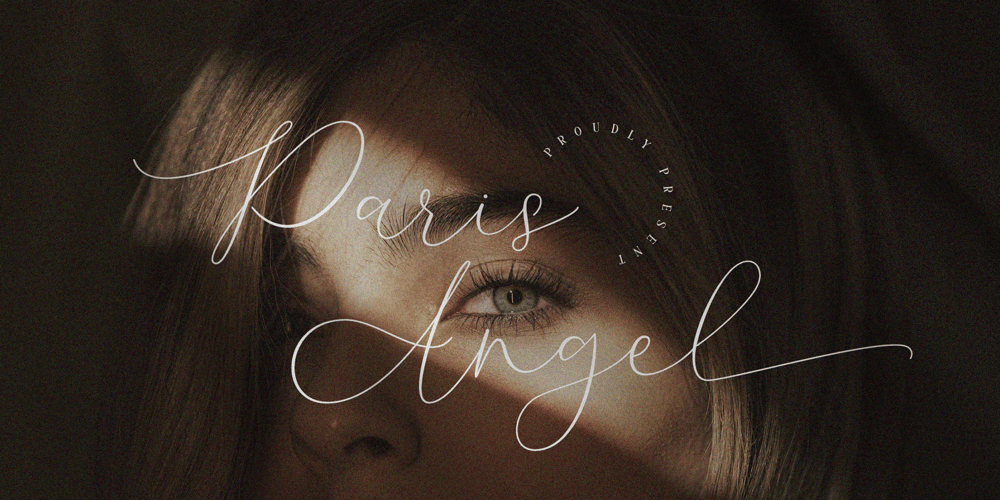
Paris Angel Font Family was designed by Revo Farsiky and published by Pen Culture. Paris Angel contains 1 styles and family package options. Introducing Paris Angel, a graceful and elegant calligraphy font that exudes timeless beauty and sophistication. Designed with meticulous attention to detail, Paris Angel captures the essence of romantic handwriting, making it the perfect choice for adding a touch of charm to your projects.With its exquisite ligatures, Paris Angel seamlessly connects letters to create fluid and natural-looking handwritten text. The ligatures beautifully merge characters, enhancing the overall aesthetic and giving your designs a polished and professional appearance.Enhancing its allure further, Paris Angel offers an enchanting array of beginning and ending swashes. These delicate and intricate flourishes gracefully adorn the start and end of each word, adding a captivating touch of elegance. Let your words come to life with these delightful swashes, making a statement and leaving a lasting impression.Whether you’re crafting wedding invitations, branding materials, logos, or any project that demands a touch of refined beauty, Paris Angel shines with its versatility. Its legibility ensures readability across different mediums, while its timeless appeal lends a sense of sophistication to any design.